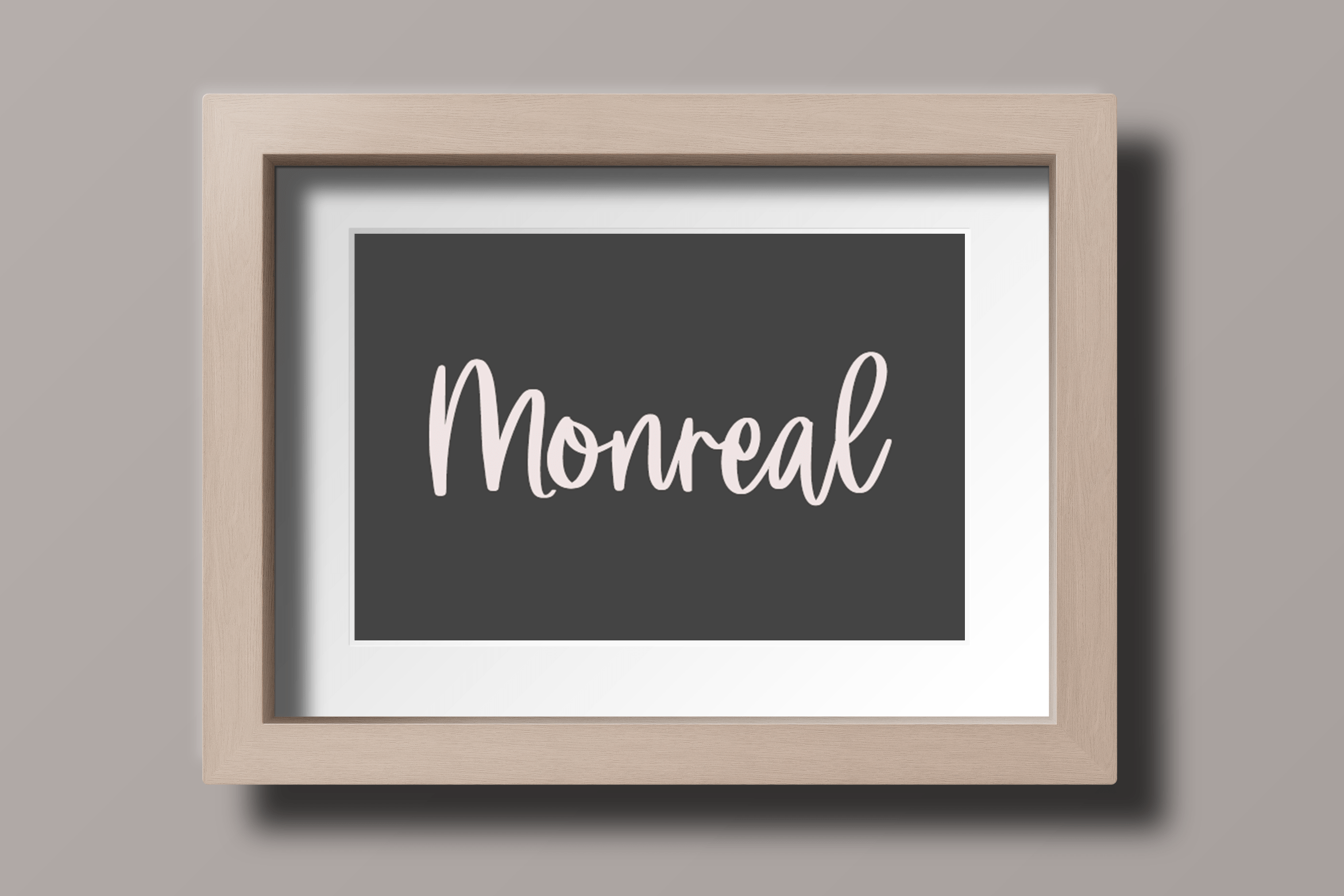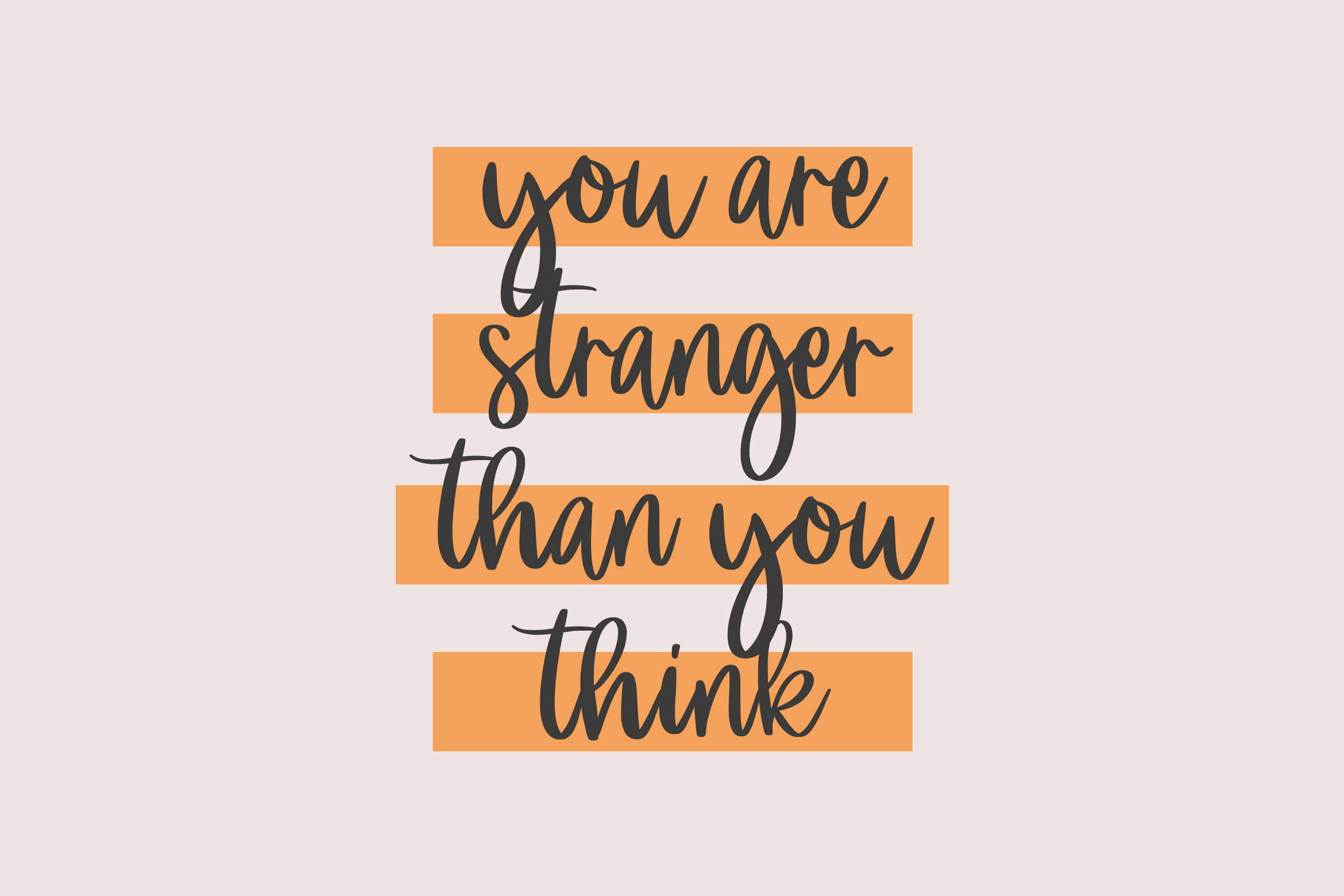
Silvermades Font
Silvermades Script Font is a beautiful and romantic script font. It looks stunning on wedding invitations, thank you cards, quotes, greeting cards, logos, business cards, and every other design which needs a lovely handwritten touch. This font is PUA encoded which means you can access all of the glyphs and swashes with ease!